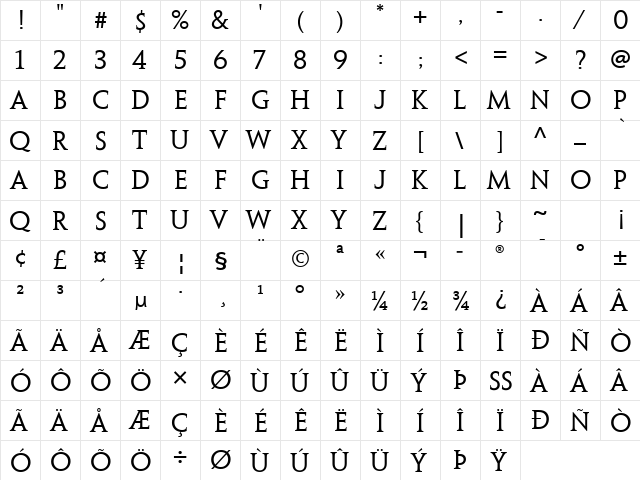
Penumbra Web Pro Serif
| Style | Serif |
| Designer | Lance Hidy |
Design Context for Penumbra Web Pro Typeface
Penumbra Web Pro brings classic typographic sensibility to the table — its serifs and measured letterforms reflect centuries of print heritage.
Pro Tip: Set Penumbra Web Pro with slightly loose tracking in headlines to let each letterform's detail read clearly at display sizes.